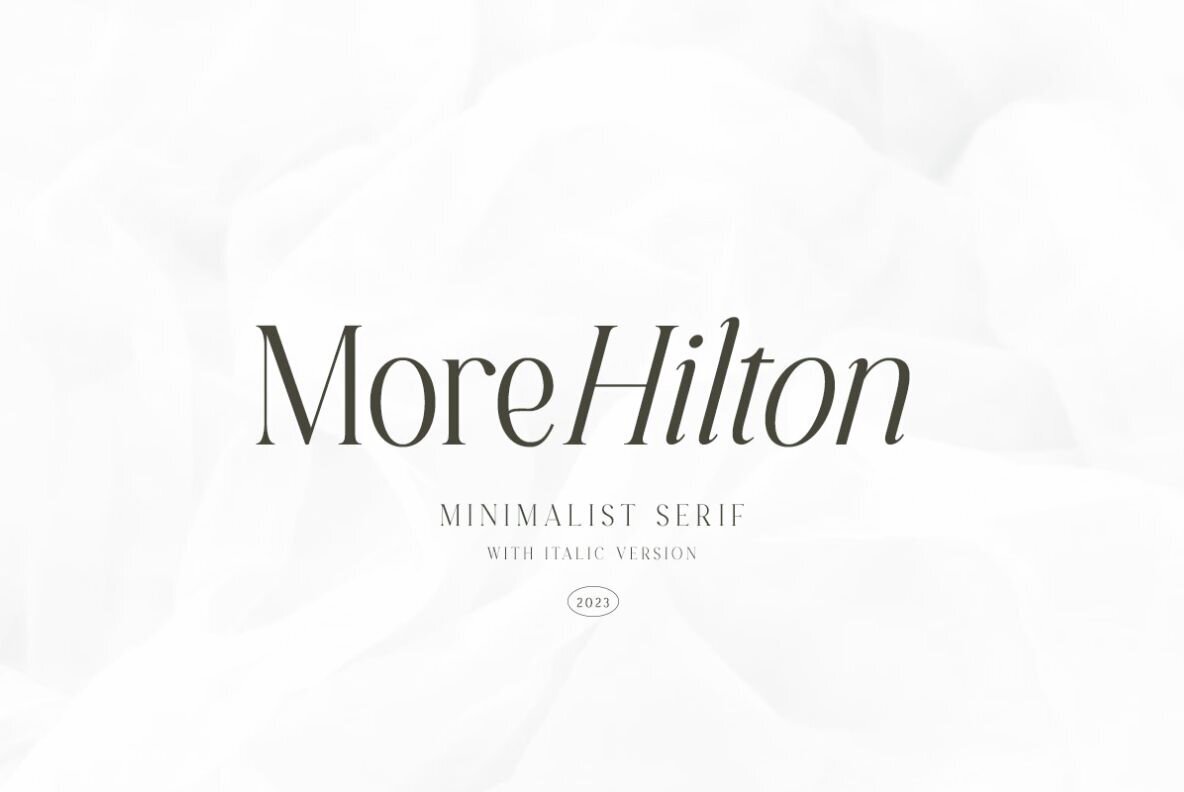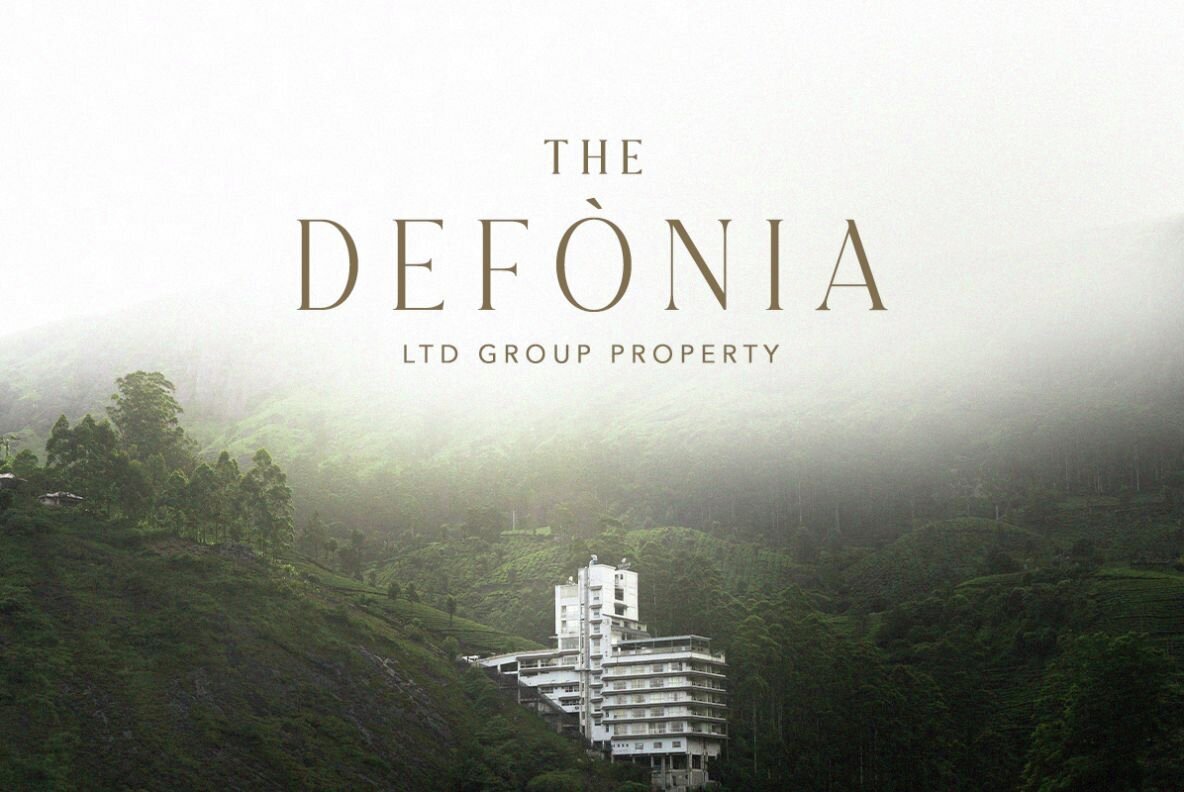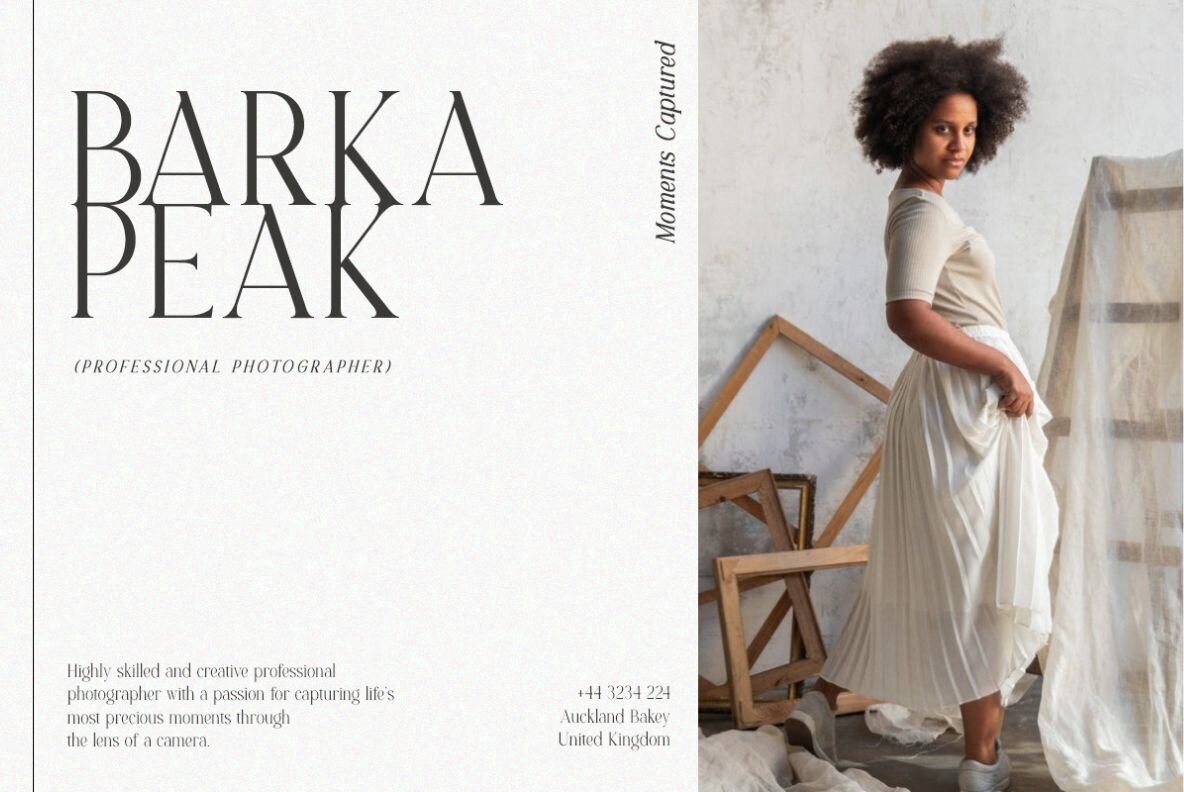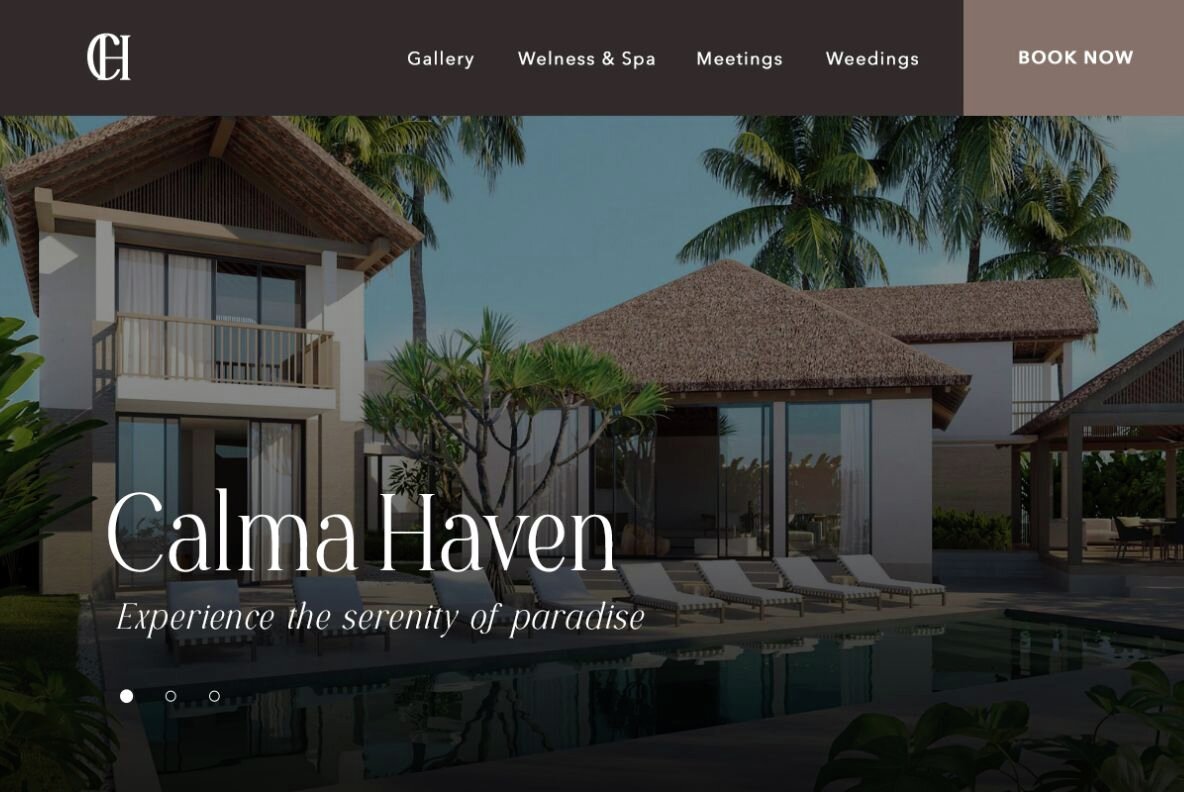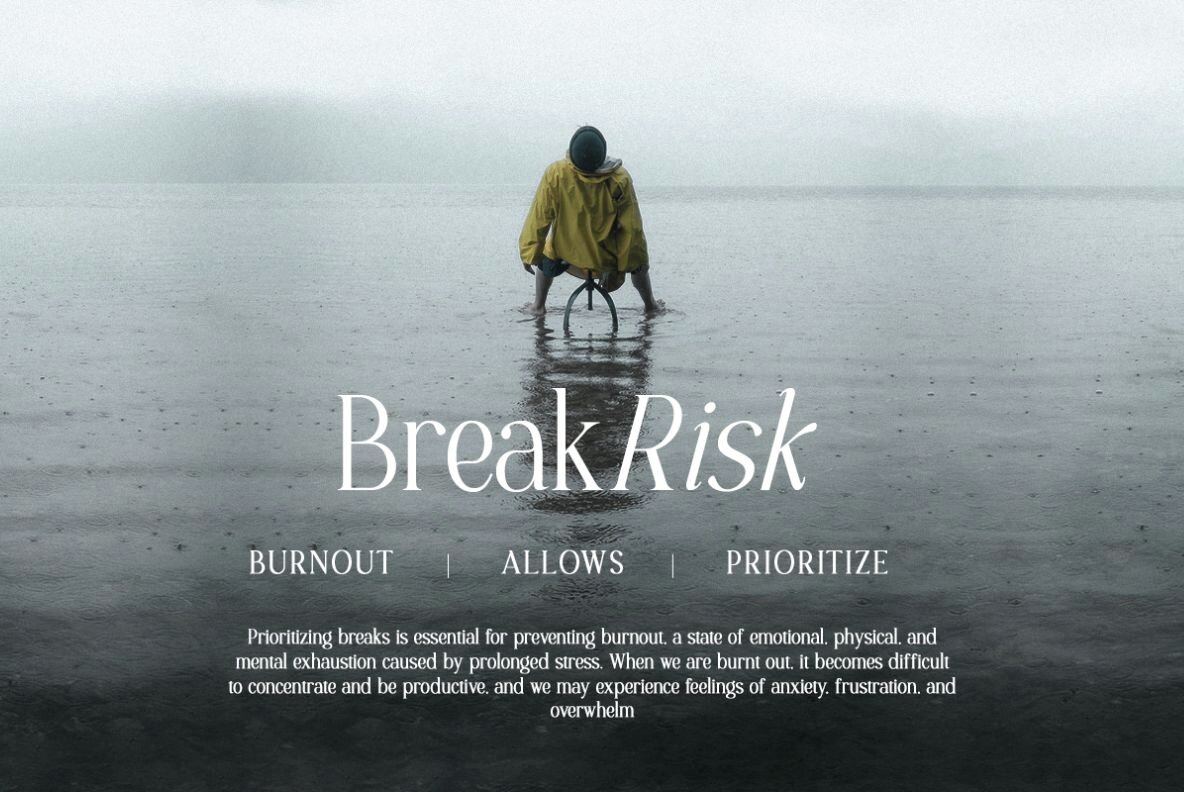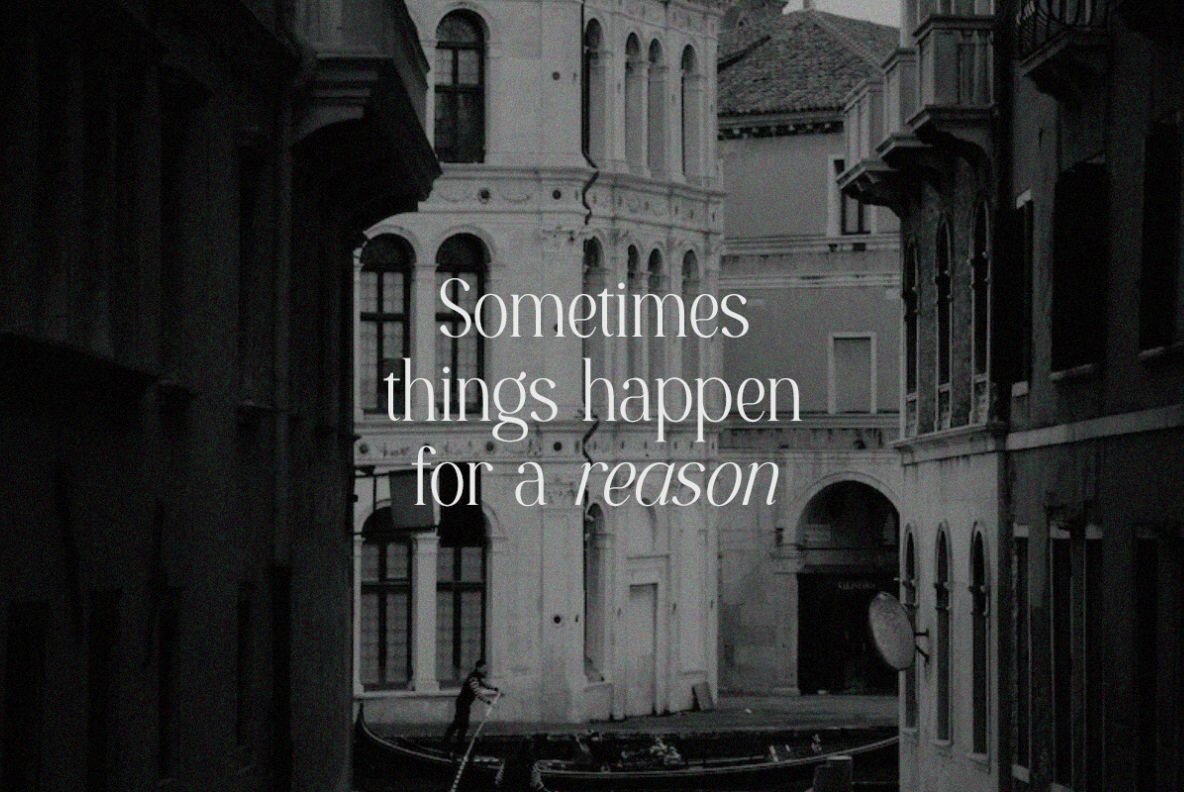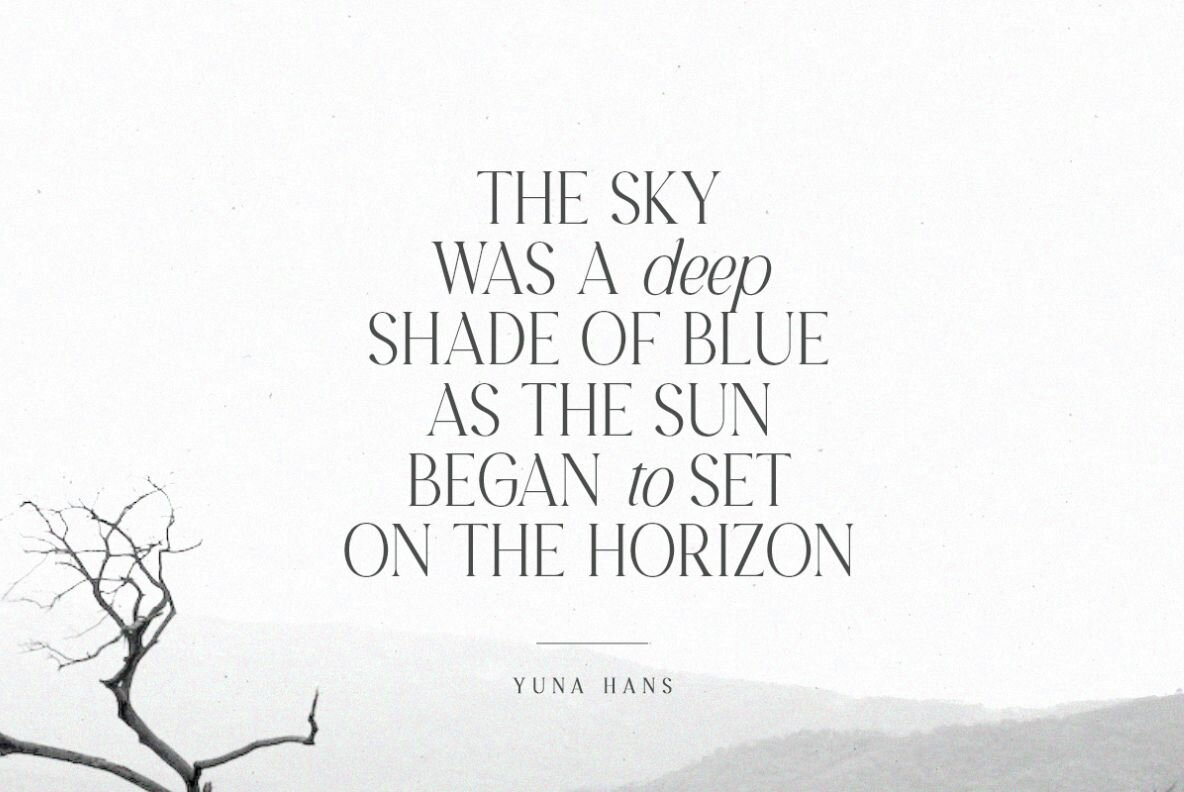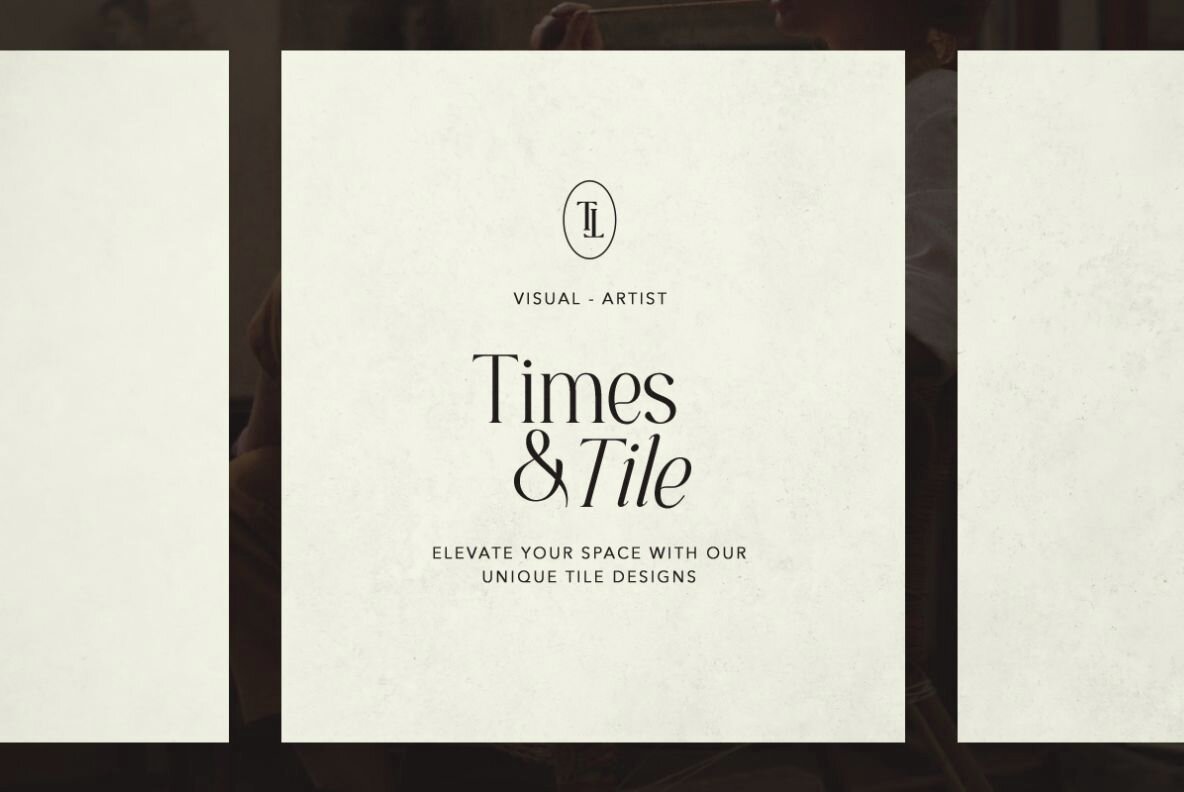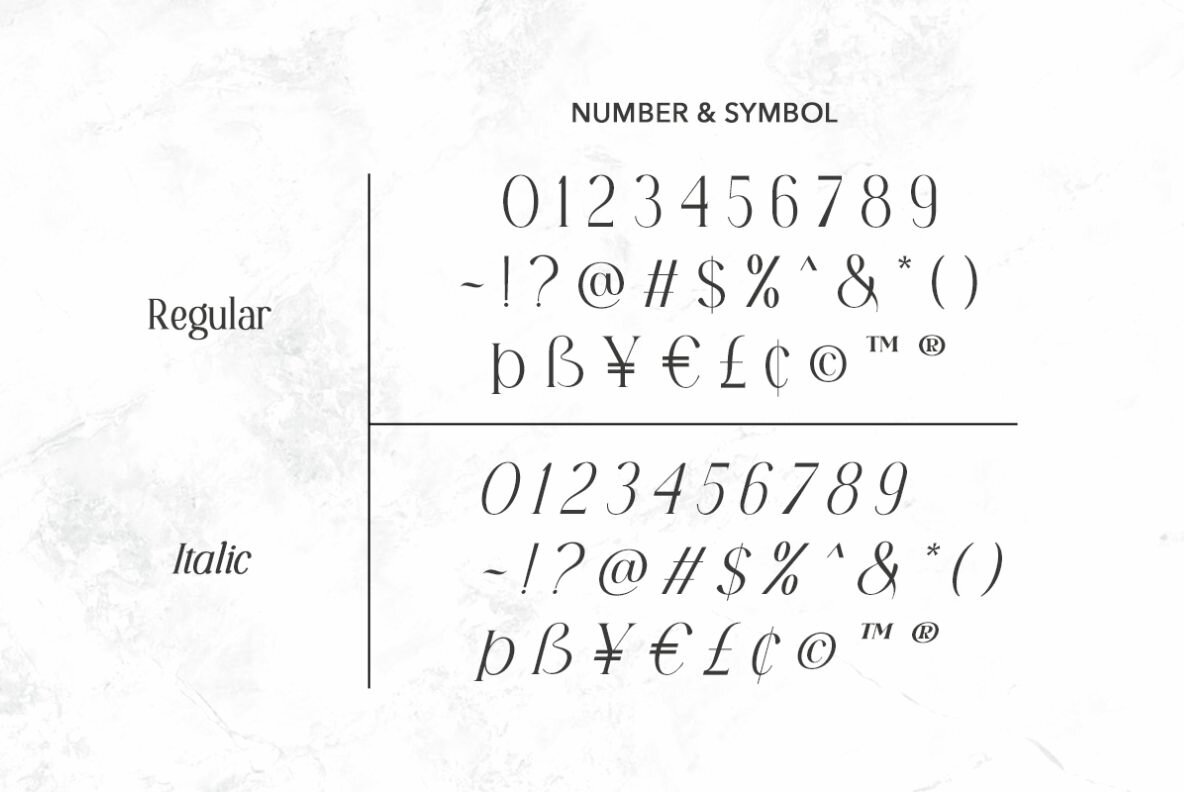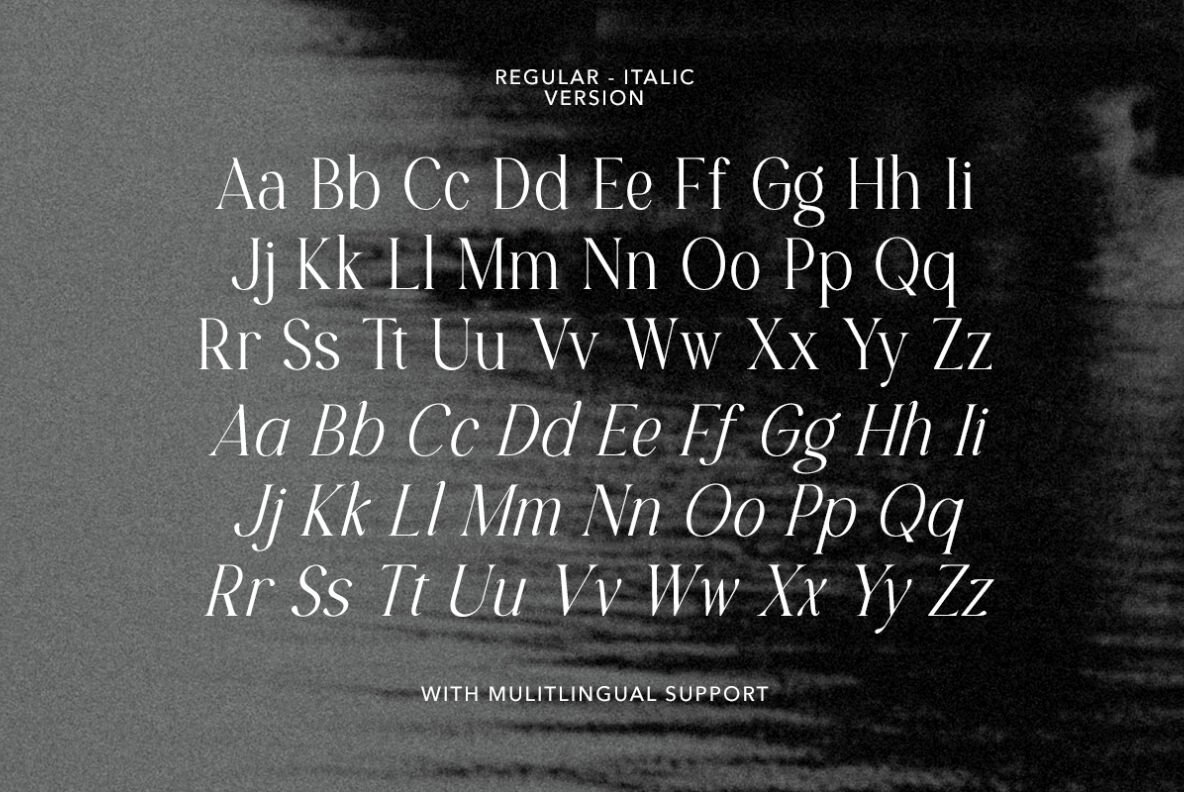
More Hilton Font
More Hilton offers a refined approach to serif fonts with its minimalist aesthetic and two distinct styles: Regular and Italic. Designed for versatility, it complements a wide range of design projects, from branding and logos to quotes and more. Its clean lines and understated elegance make it an ideal pairing with script fonts, offering a harmonious balance in your creative compositions.More Hilton: Minimalist Serif Font Family